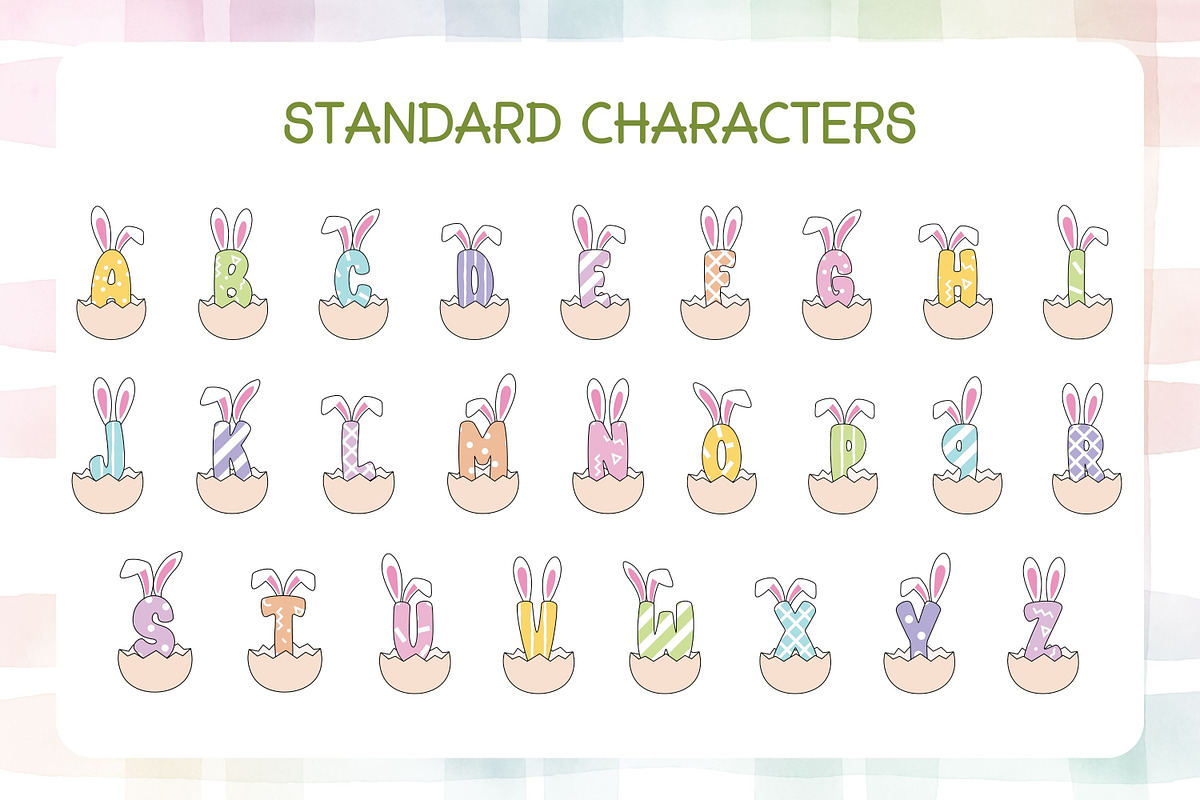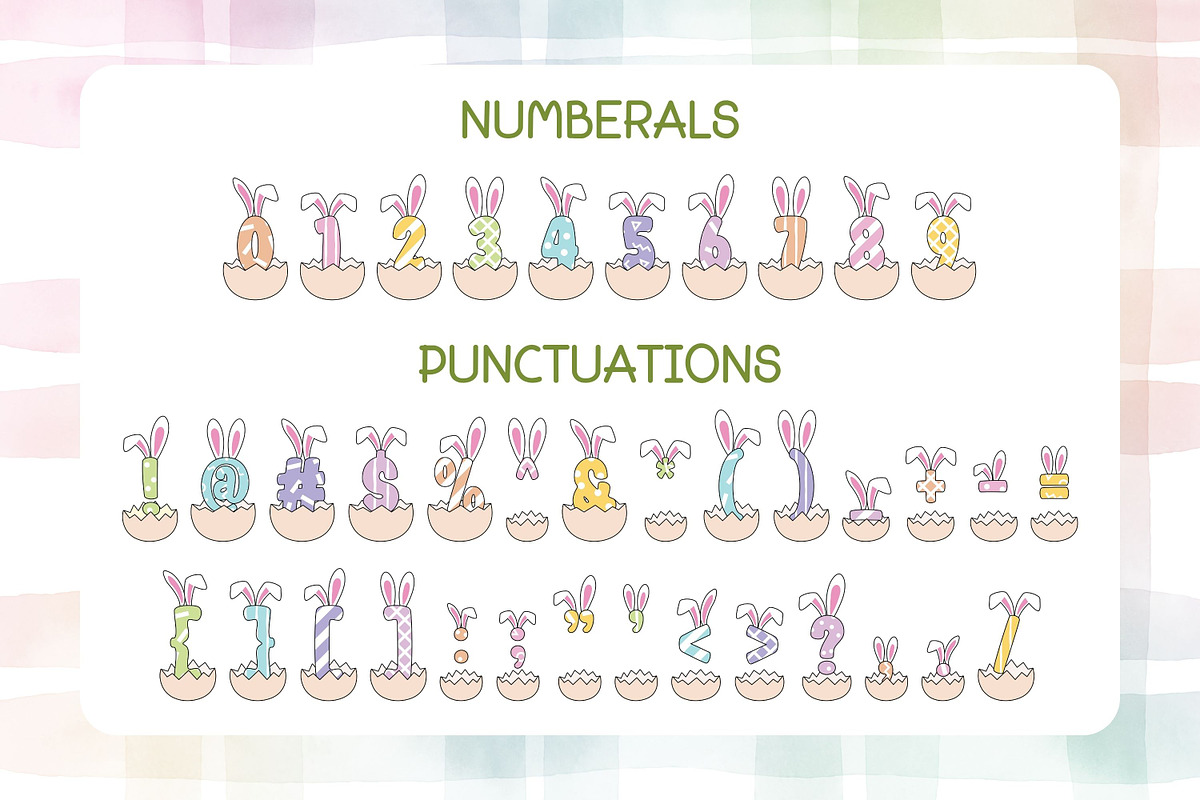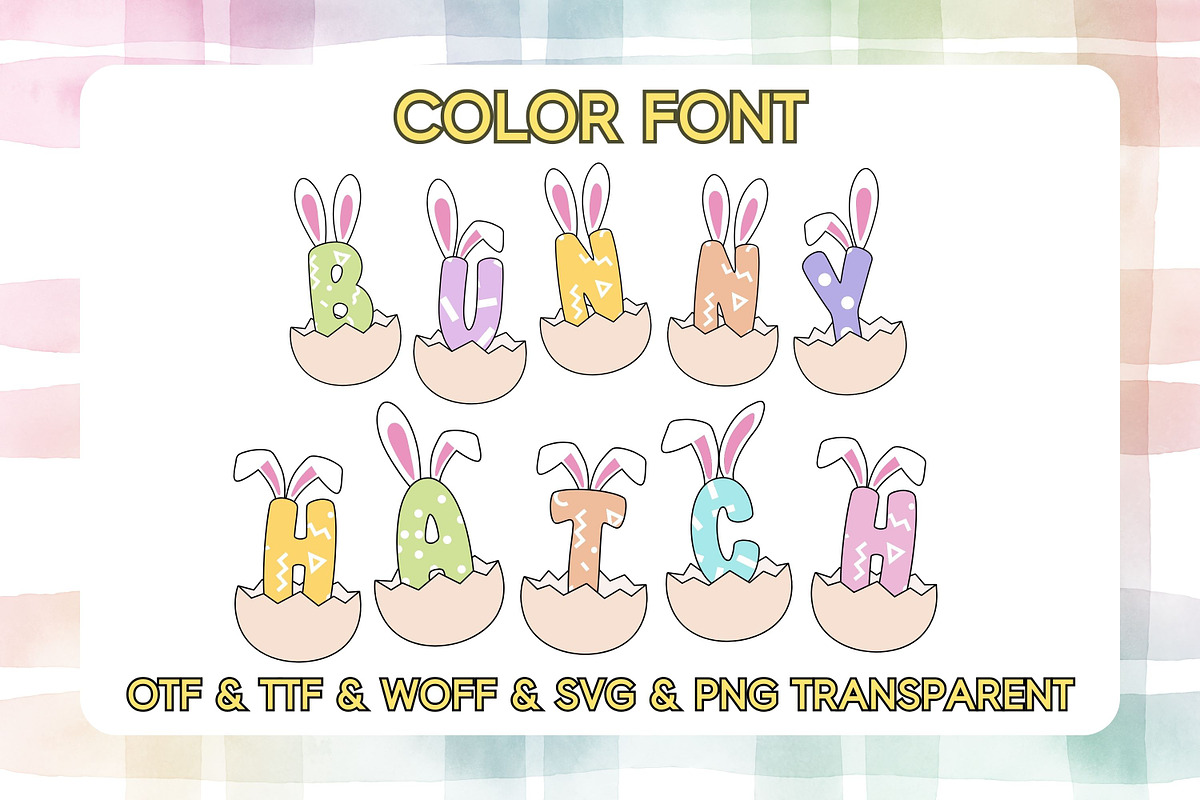
Bunny Hatch - Color Font
Bunny Hatch Color Font is a cute and playful color display font inspired by Easter, bunny ears, and cracked eggshell designs. Each character comes with colorful patterns and adorable bunny ears popping out of eggs, making this font perfect for fun, kids, and holiday projects.
The font contains uppercase, lowercase, numbers, and punctuation, allowing you to create complete and creative typography easily.
Perfect for Easter theme, bunny theme, kids design, cute projects, and decorative titles.